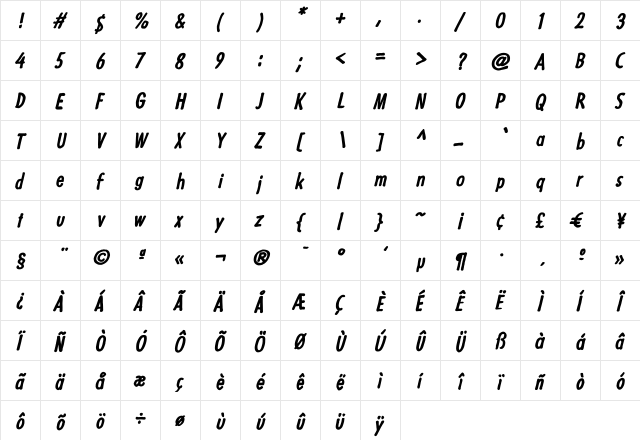
Futuramano Condensed Bold Italic Font Preview
Design Context for Futuramano Condensed Typeface
Futuramano Condensed has a distinctly futuristic character, with geometric precision and clean angles that feel at home in technology, gaming, and sci-fi contexts. Its italic angle brings a sense of urgency and motion to the letterforms. Its bold stroke weight gives it real presence on the page. Its narrow stance lets it pack a punch even in space-constrained designs.